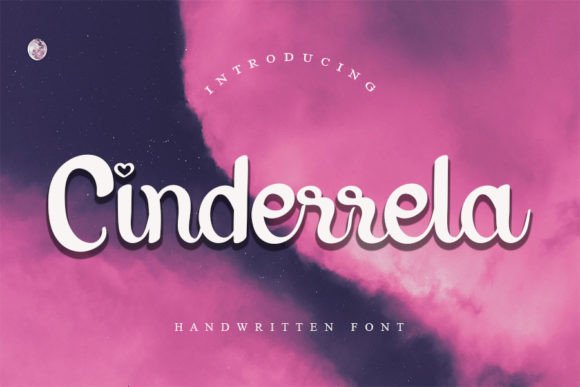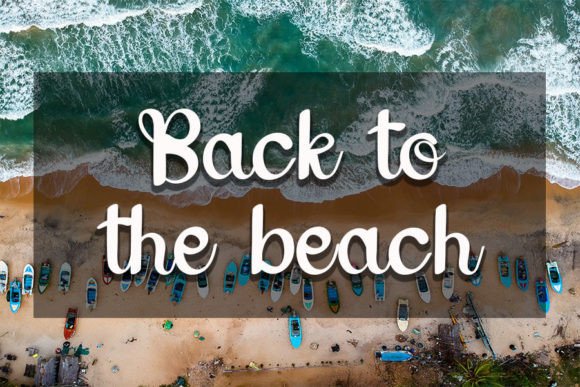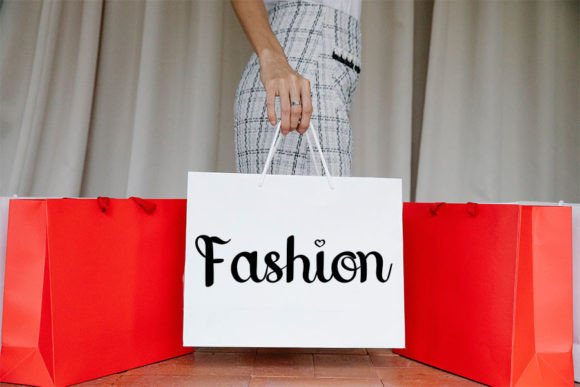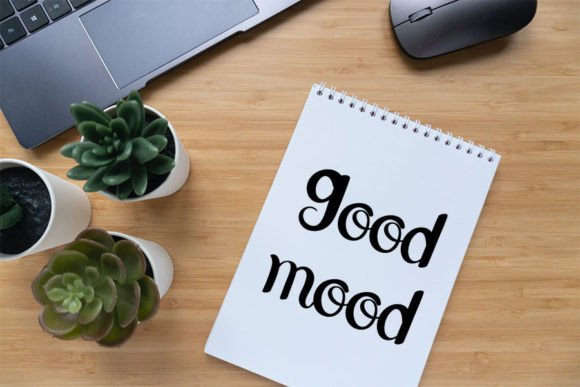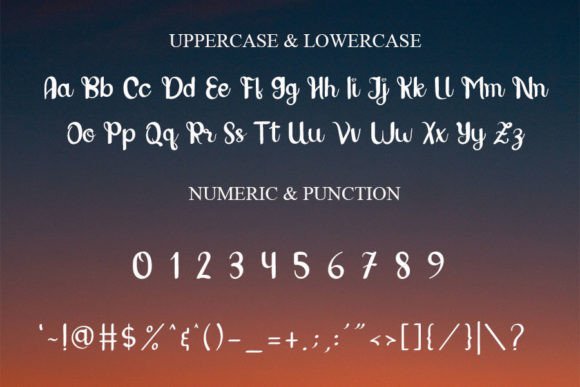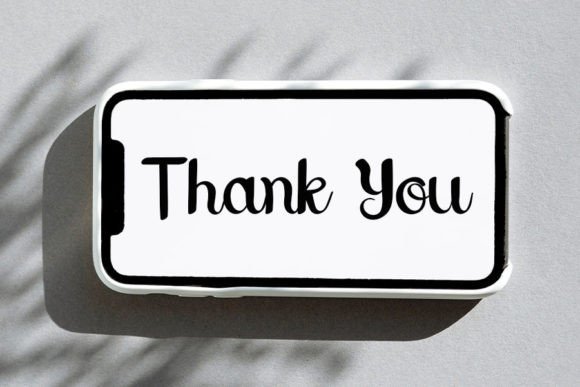
Cinderrela Font Font
About Cinderrela Font
“Cinderrela” is more than just a font; it’s a delightful handwritten script meticulously crafted to be your absolute favorite. With a perfect balance of classic calligraphic influences and a contemporary, fresh vibe, “Cinderrela” stands as a testament to the harmonious fusion of timeless elegance and modern creativity.
The font is a visual symphony of carefully designed strokes and curves, creating an aesthetic that exudes class and sophistication. Its friendly and approachable appearance makes it a versatile choice for a wide array of creative projects. Whether you’re working on invitations, branding materials, or any design endeavor, introducing “Cinderrela” promises to elevate your work to outstanding levels.
Picture the enchantment of “Cinderrela” gracing a wedding invitation, infusing the event with a touch of whimsy and romance. Imagine a brand logo that seamlessly weaves together the richness of traditional calligraphy with a contemporary twist, establishing a visual identity that resonates with both tradition and modernity. “Cinderrela” is not just a font; it’s a design ally that adds a layer of charm and innovation to your creative expressions.
What truly sets “Cinderrela” apart is its ability to maintain a delicate balance between the classic and the current. The font becomes a bridge, connecting the grace of calligraphy with the vibrancy of the present. As you incorporate “Cinderrela” into your designs, you’re not just choosing a typeface; you’re making a deliberate decision to infuse your projects with a unique and memorable character.
For designers, “Cinderrela” is a magical tool that transforms the ordinary into the extraordinary. Its handwritten, friendly demeanor invites viewers to engage with the content, creating a visual experience that goes beyond the mundane. Whether applied in print or digital media, “Cinderrela” ensures that your designs leave a lasting impression, making your creative endeavors truly outstanding.
So, why settle for the ordinary when you can enchant with “Cinderrela”? Let it be the brushstroke that paints a captivating narrative across your projects. With its seamless blend of classic allure and contemporary flair, this font isn’t just a typographic choice; it’s a design companion that ensures your work remains timeless and relevant. “Cinderrela” – where classic charm meets modern brilliance, turning your creative projects into captivating tales.